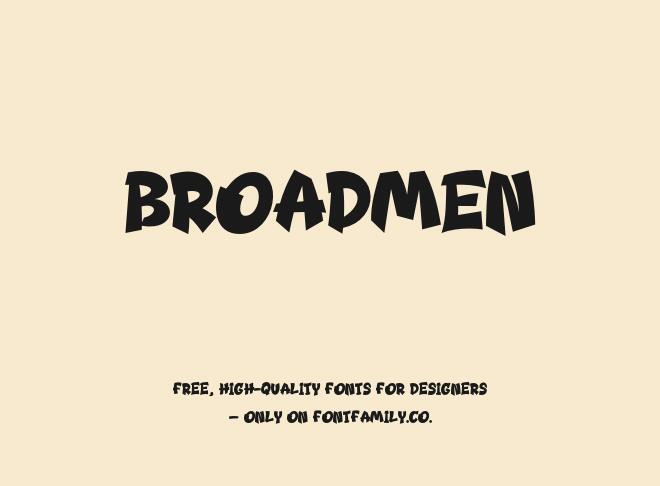
Broadmen Font
Broadmen Font, a creation of Broadmen Foundry, is a remarkable display font that exudes a bold retro vibe, making it an exceptional choice for designers aiming for a vintage look. Its distinct character set, inspired by the typographical designs of the mid-20th century, makes it stand out. With its sans serif style, Broadmen Font is highly versatile, suitable for various design scenarios like signage, posters, branding, and digital design. It's a bold choice that gives your design a strong impression, easily comparable to fonts like Impact or Bebas Neue, yet it maintains its unique charm. Broadmen Font's open font license allows designers to freely use it for both personal and commercial projects, making it a valuable addition to your design toolkit. Experience the nostalgic, bold, and stylish appeal of Broadmen Font.